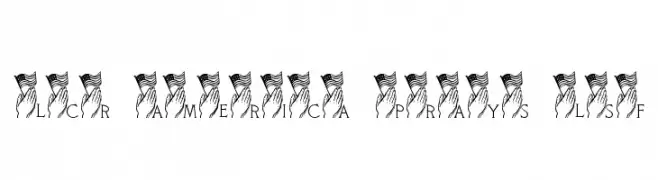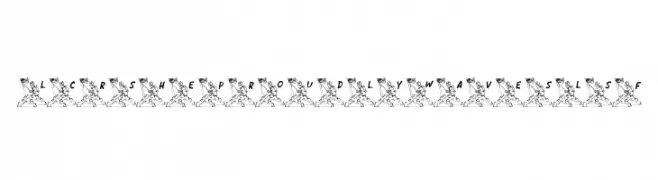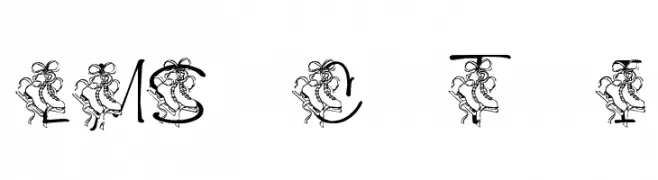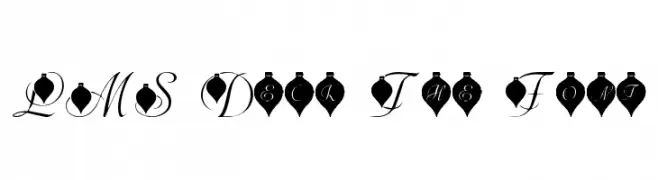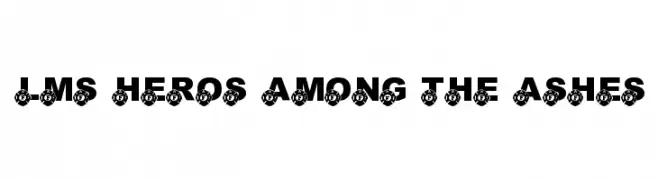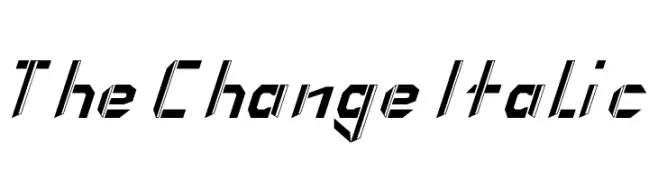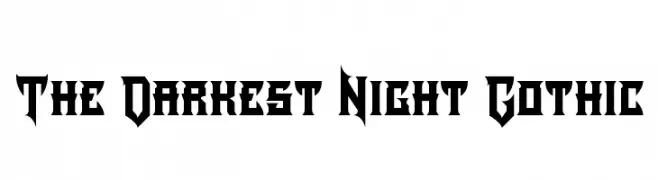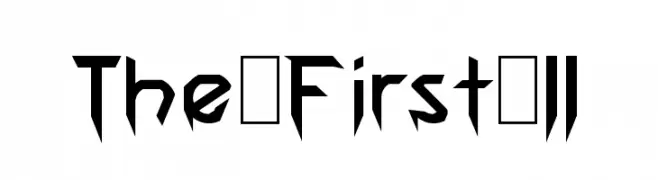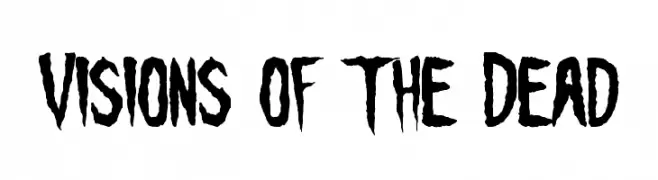
A decorative serif font with Statue of Liberty silhouettes in uppercase letters.
A bold, italicized font with a futuristic and angular design.
A bold, gothic font with sharp, angular edges and a dramatic presence.
A bold, angular font with a futuristic, geometric style.
A serif font with patriotic and spiritual imagery of flags and praying hands.
A decorative font with characters accompanied by flag-waving illustrations.
A bold, jagged font with a haunting, hand-drawn style.
A whimsical font with ice-skating characters integrated into each letter.
An elegant, ornament-themed decorative font with high contrast script characters.
A bold, decorative font featuring unique emblematic designs within each character.